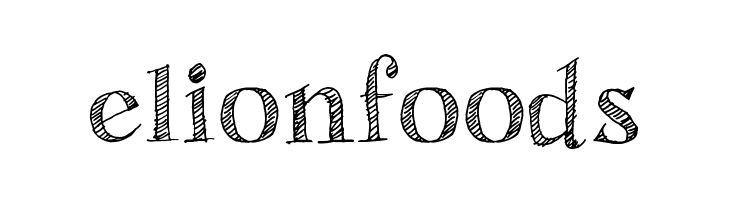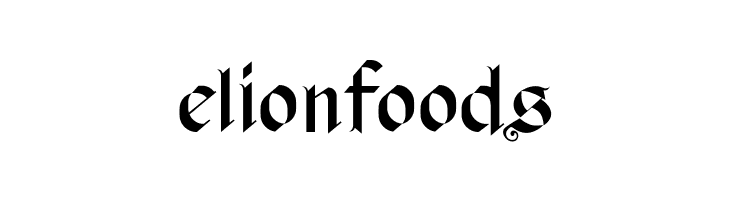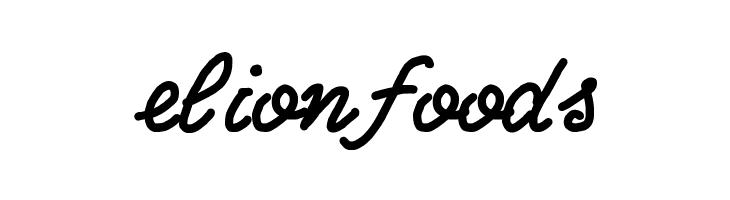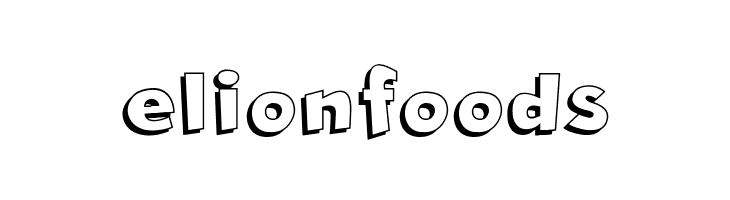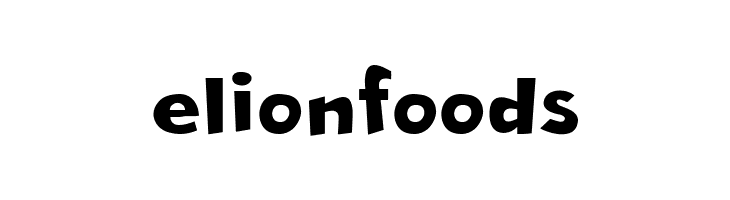
A hand-drawn serif font with a sketch-like, textured appearance.
A playful, hand-drawn font with whimsical details and a bold, cartoonish style.
A bold, decorative font with a vintage, collegiate style and three-dimensional shading.
A classic blackletter font with ornate, gothic design and high contrast strokes.
A cursive script font with elegant, flowing lines and balanced proportions.
A whimsical, handwritten font with tall, narrow characters and a playful tone.
A handwritten, italic font with elongated, flowing characters.
A playful, handwritten font with tall, narrow letters and a whimsical style.
A bold, playful font with a shadow effect and cartoonish style.
A bold, playful font with a quirky, cartoon-like style.